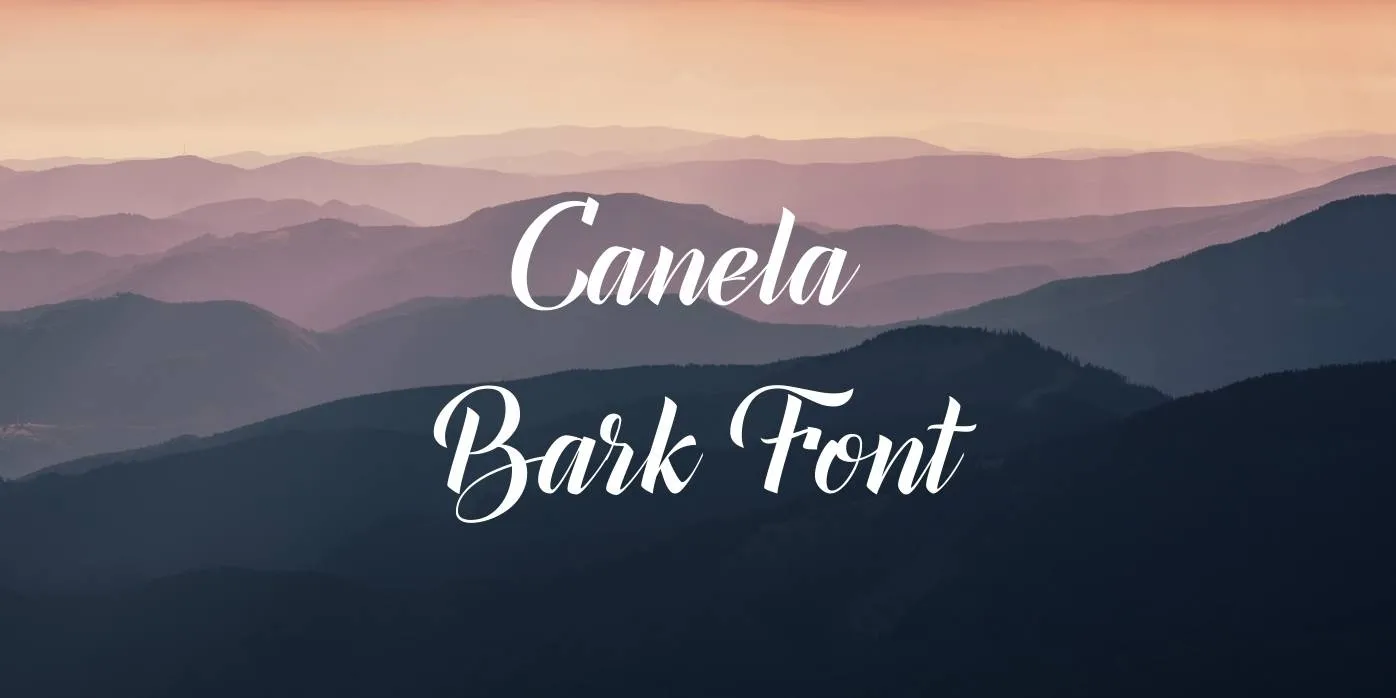
Canela Bark Font
In this post, we present Canela Bark Font which belongs to the Script typeface. This stunning typeface was designed by Mans Greback. It has a unique handwritten style that makes it stand out from the rest. This stunning font is available in both regular and bold weights.
This tremendous font is perfect for branding purposes, logos, quotes, and other creative designs. You can use this font for both personal and commercial projects. Also, this gorgeous typeface is available in 6 classic styles including Regular, Bold, Outline, Inline, Rough, and Shadow. If you want to get progress then you can use the florabella font which has classic features.